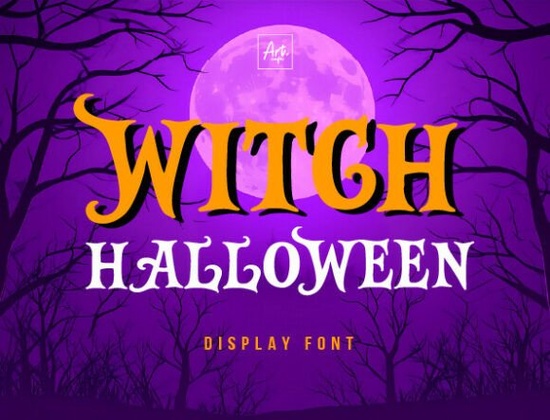
If you're working on Halloween-themed designs this season whether for greeting cards, printable party decor, T-shirts, or social media graphics you’ll want a font that captures the spirit without going over the top. The Witch Halloween Font does exactly that: it blends whimsy and spookiness in a way that feels both playful and authentically seasonal. With its irregular edges, vintage-inspired serifs, and subtle charm, it’s a go-to choice for anyone creating festive yet tasteful Halloween content.
Unlike overly dramatic horror fonts that can feel cartoonish or dated, Witch Halloween strikes a balance. It includes full uppercase and lowercase letters, numbers, and punctuation, so you’re not limited to headlines it works well for short phrases, labels, or even packaging copy. Designers especially appreciate how it alternates between white and orange in display settings, giving your mockups instant visual pop without extra effort.
What kinds of projects work best with Witch Halloween?
This font shines in contexts where a touch of magic matters more than outright fright. Think:
- Handmade Halloween invitations or party favor tags
- Print-on-demand mugs, totes, and apparel with witty or witchy slogans
- Digital stickers or planner elements for October-themed kits
- Branding for small businesses running seasonal promotions (like a pumpkin spice café or a local haunted tour)
Because it carries a hint of vintage elegance, it pairs beautifully with muted color palettes think deep purples, mossy greens, and antique golds not just the standard black-and-orange combo. That versatility makes it useful beyond just October 31st; it fits fall festivals, harvest markets, or even year-round witchy aesthetics.
How does it compare to other display fonts?
Not all Halloween fonts are created equal. Some lean too cute (Cheer Font, for example, is bubbly and bright great for kids’ parties but less suited for moody witchcraft themes). Others go full horror with jagged edges and drips, which can overwhelm delicate designs.
Fox Chubby Font, by contrast, offers rounded, friendly letterforms that work well for cozy autumn vibes but again, it lacks the eerie nuance that Witch Halloween delivers. If your project needs that specific blend of charm and creepiness like a spellbook cover or a “Witch’s Brew” label this font fills a sweet spot others don’t.
Tips for using Witch Halloween effectively
To get the most out of this typeface, keep these practical pointers in mind:
- Avoid long blocks of text. Like most display fonts, it’s meant for headlines, logos, or short phrases. Legibility drops quickly in paragraph form.
- Pair it wisely. Use a clean, neutral sans-serif (like Montserrat or Lato) for supporting text to let the font’s personality stand out without competing.
- Play with texture. Overlaying the text on grungy paper, parchment, or fabric backgrounds enhances its vintage, handcrafted feel.
- Adjust tracking slightly. Because of its quirky serifs and uneven baseline, a tiny bit of letter-spacing often improves readability in digital formats.
Who should consider this font?
Witch Halloween isn’t just for professional graphic designers. It’s equally valuable for:
- Crafters making DIY decorations or printable wall art
- Etsy sellers designing digital downloads or physical goods
- Small business owners running seasonal promotions or themed events
- Hobbyists who enjoy personalizing Halloween cards or photo albums
If your goal is to create something that feels intentional, festive, and slightly mysterious without looking like a generic store-bought poster this font gives you that authentic handmade-with-magic vibe.